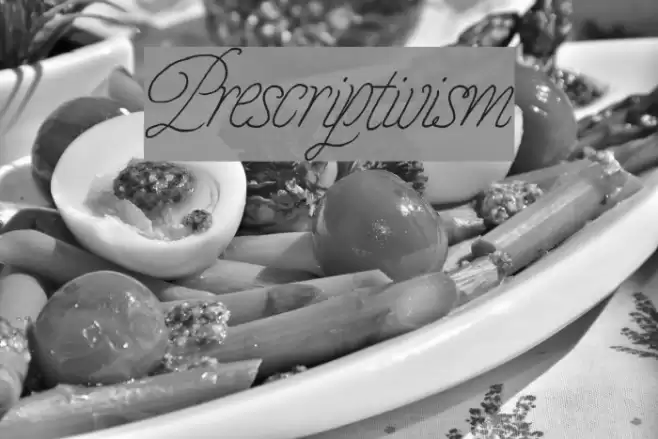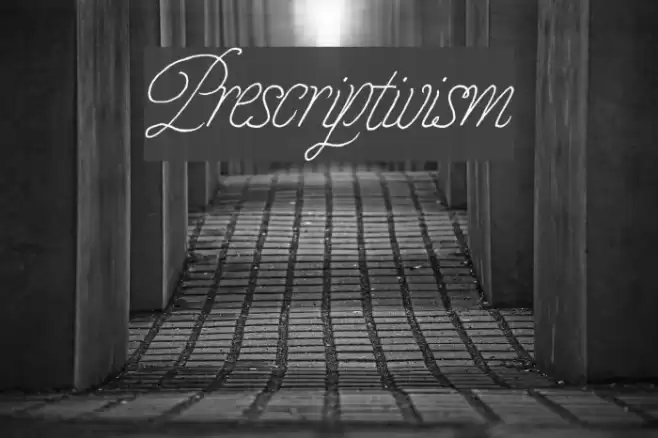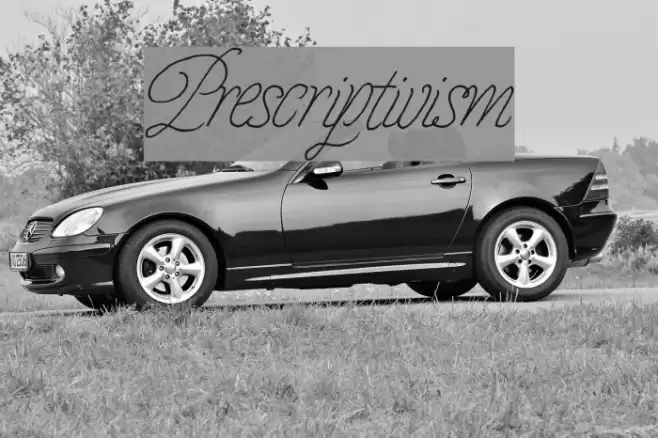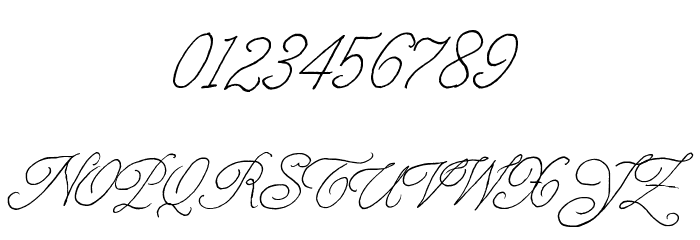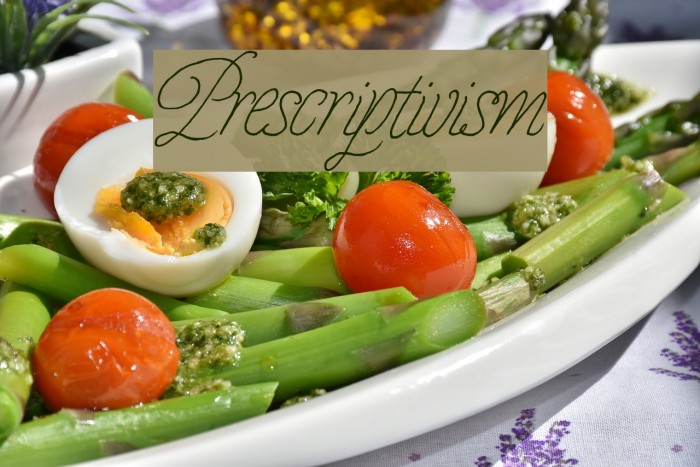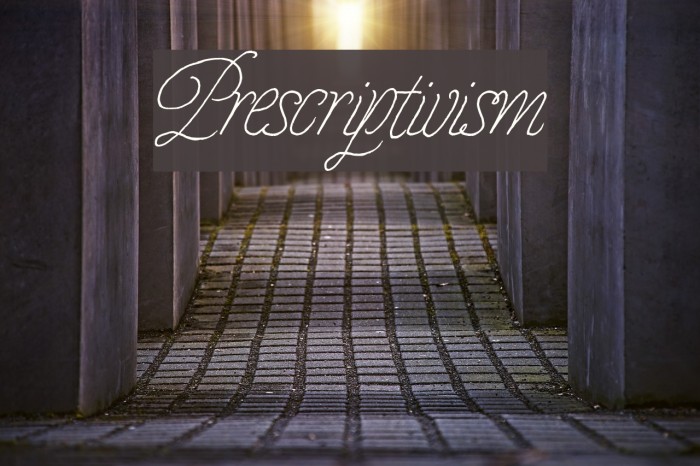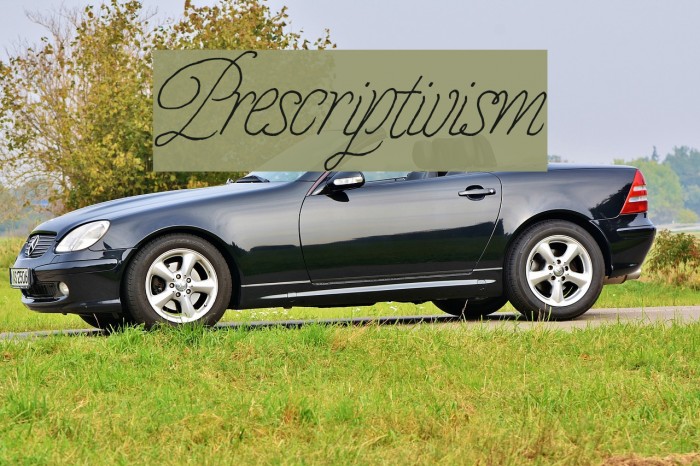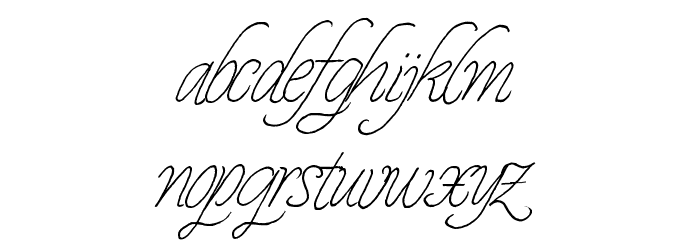
Prescriptivism Font
Prescriptivism Description
This elegant script font features flowing, interconnected letters with a classic and sophisticated appearance. The uppercase letters are adorned with intricate swirls and loops, giving them a decorative flair. The lowercase letters maintain a smooth and consistent flow, enhancing readability while preserving the font's ornate style. The numerals are designed to match the overall aesthetic, with similar curves and embellishments. Special characters are also included, maintaining the same level of detail and elegance. This font is ideal for projects that require a touch of refinement and grace.
An elegant script font with flowing, interconnected letters and decorative swirls from Uncategorized fonts.
- Proposed Projects: Ideal for wedding invitations, formal event programs, elegant branding, and luxury product packaging.
- Overall Style: Classic
- Use Case: Logos, Invitations, Decorative text